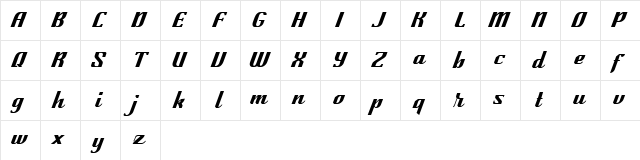
CuttingEnds FREE Regular
Design Context for CuttingEnds FREE Typeface
CuttingEnds FREE is a composed and adaptable typeface that performs quietly and consistently across a wide range of design contexts.